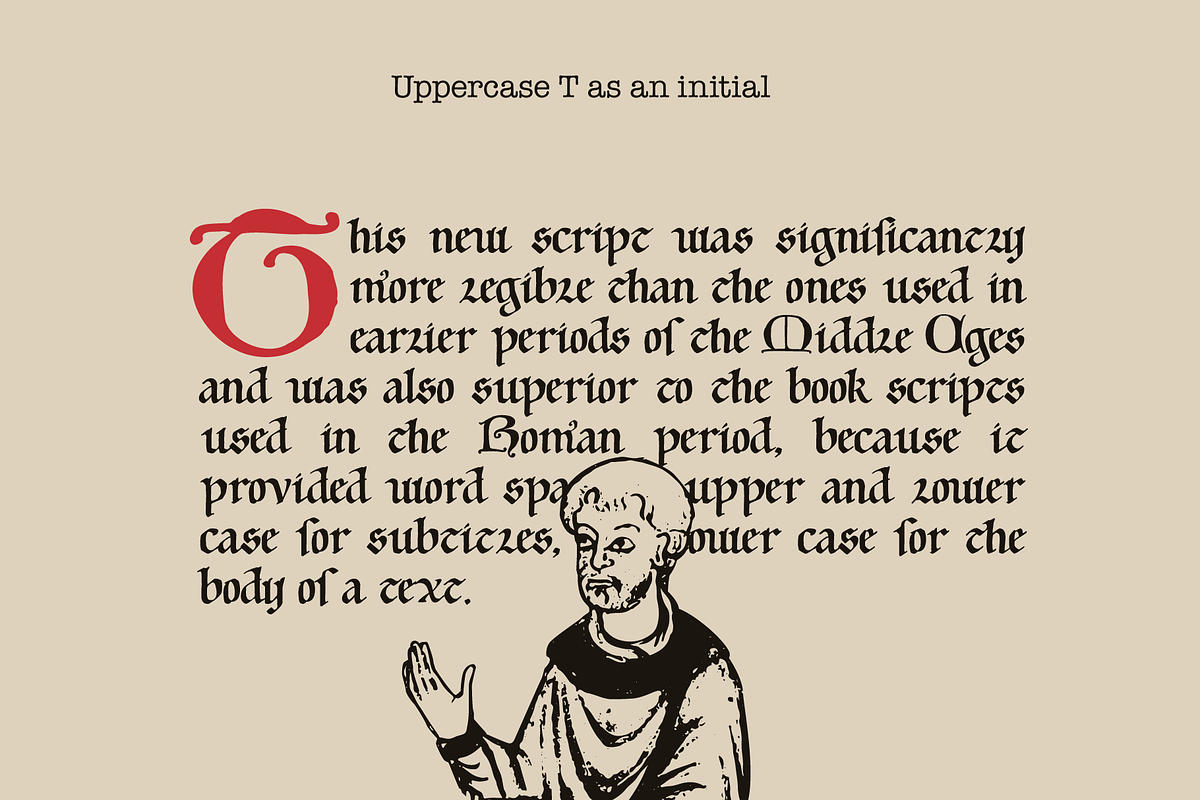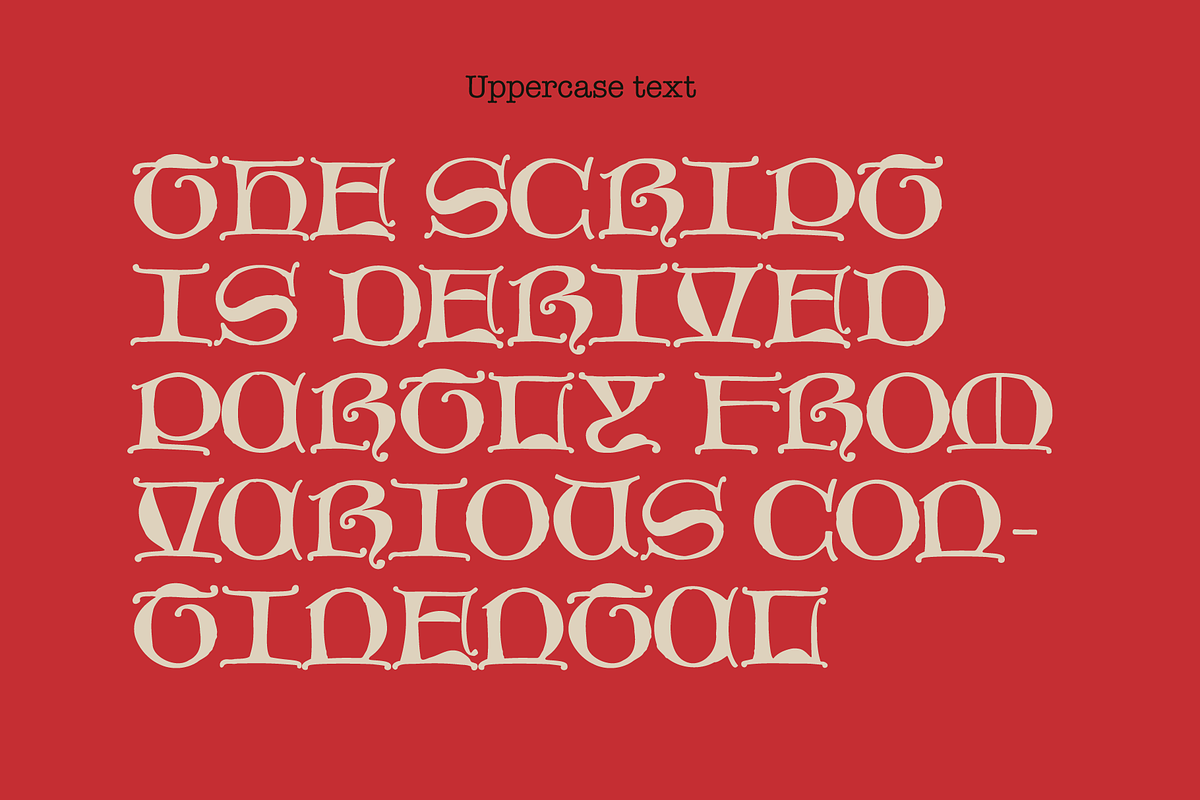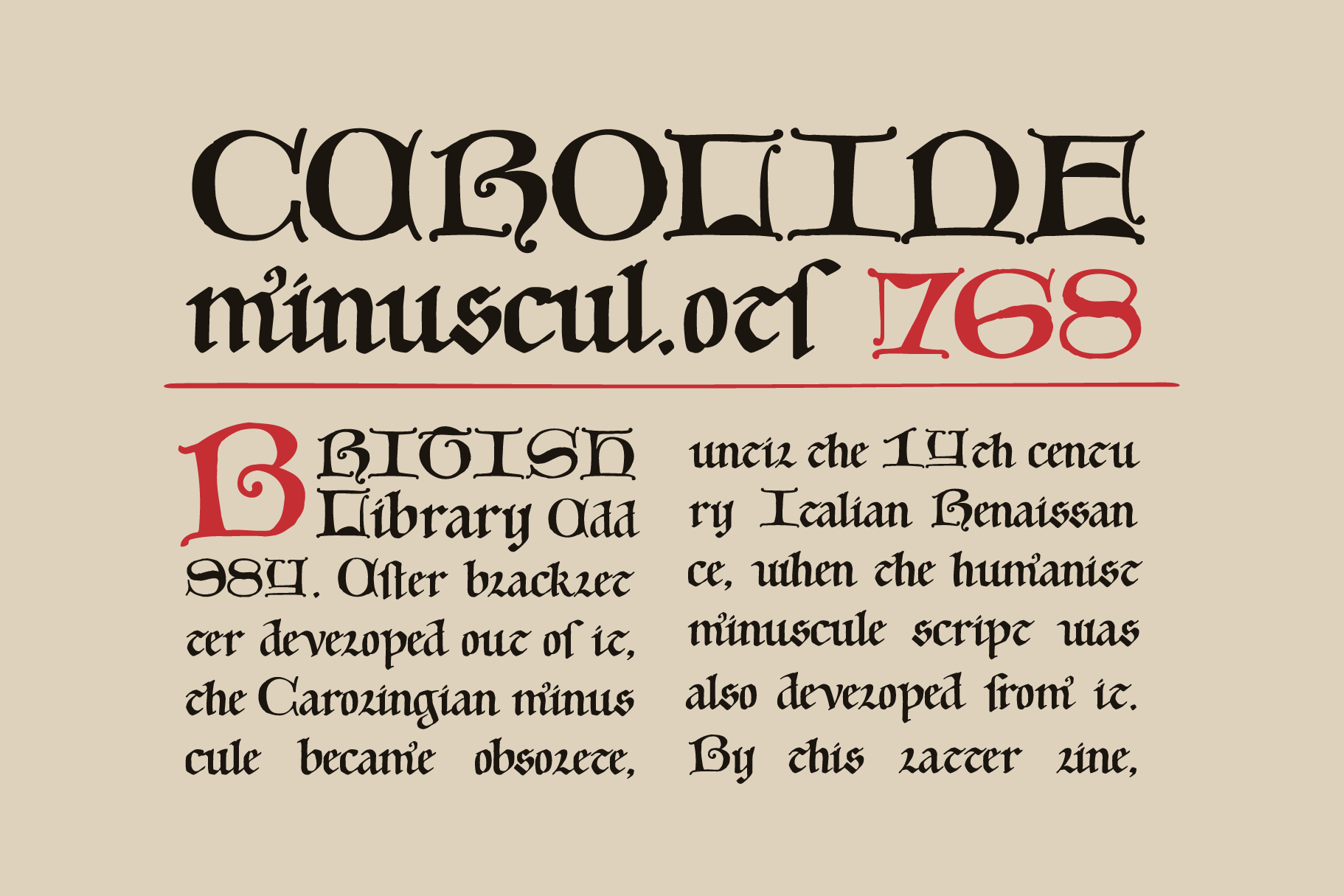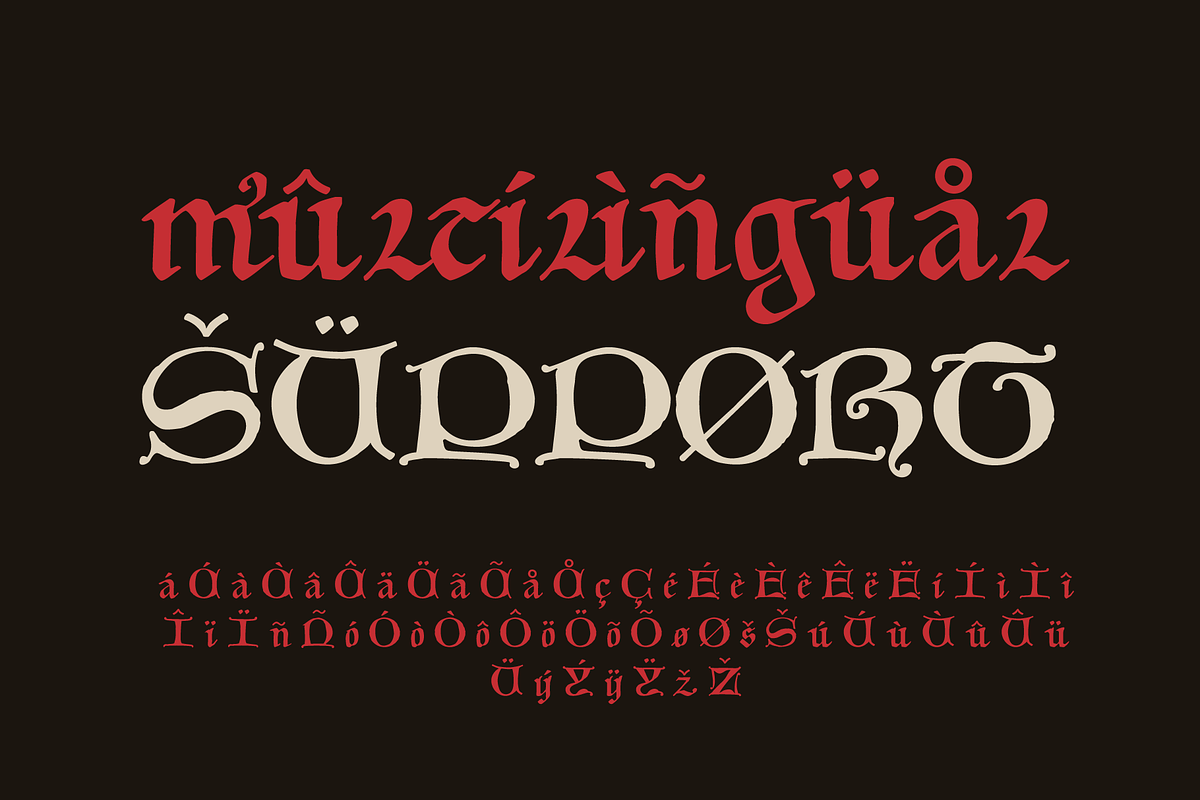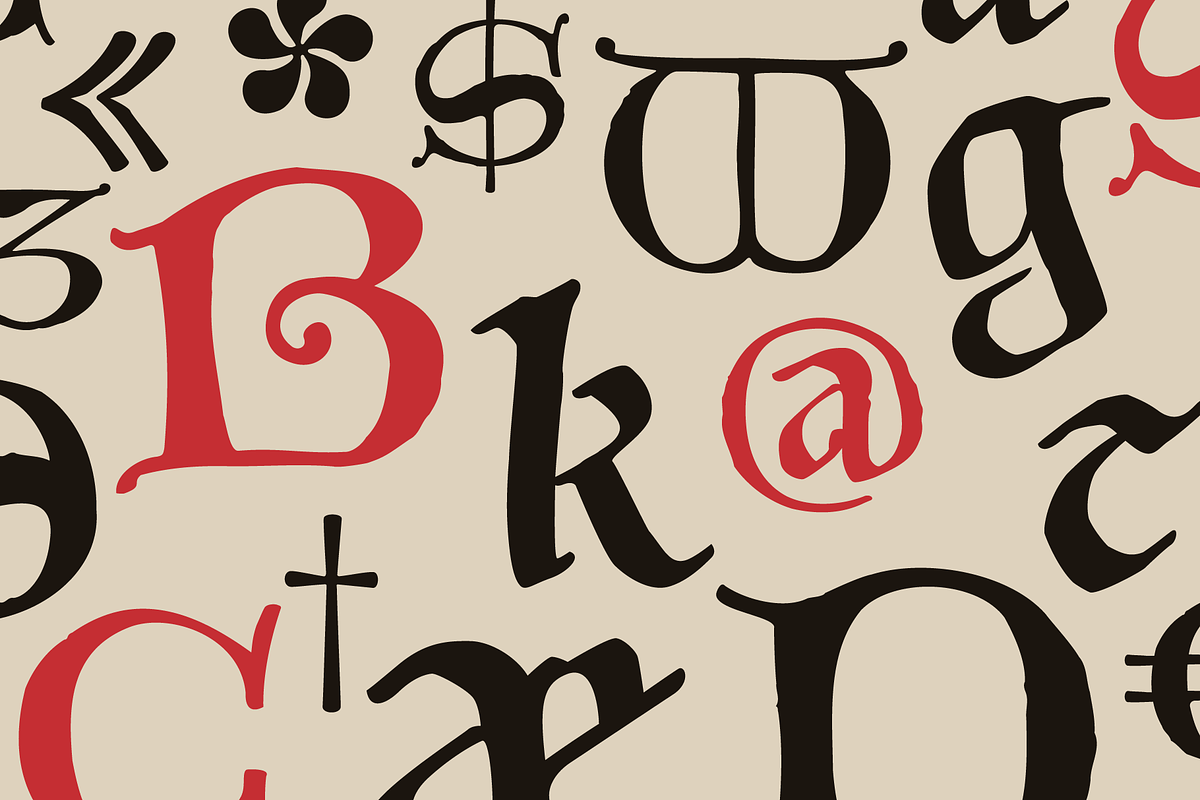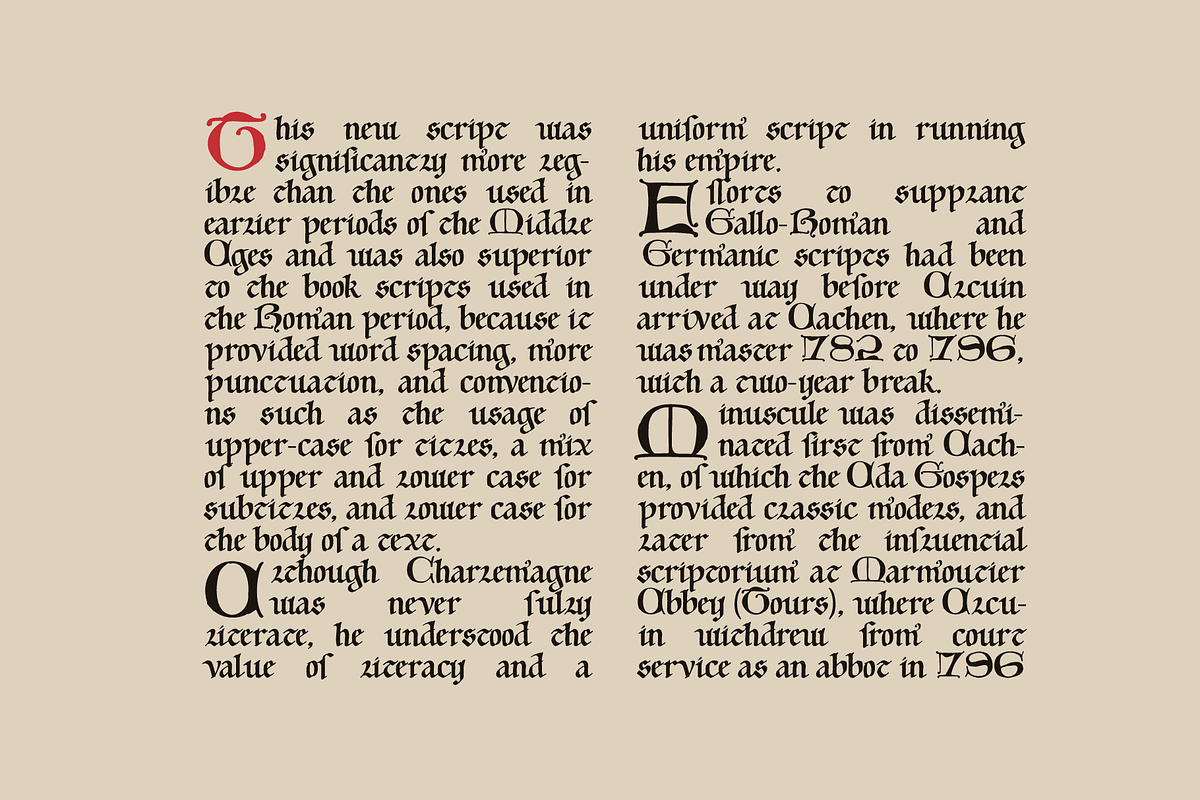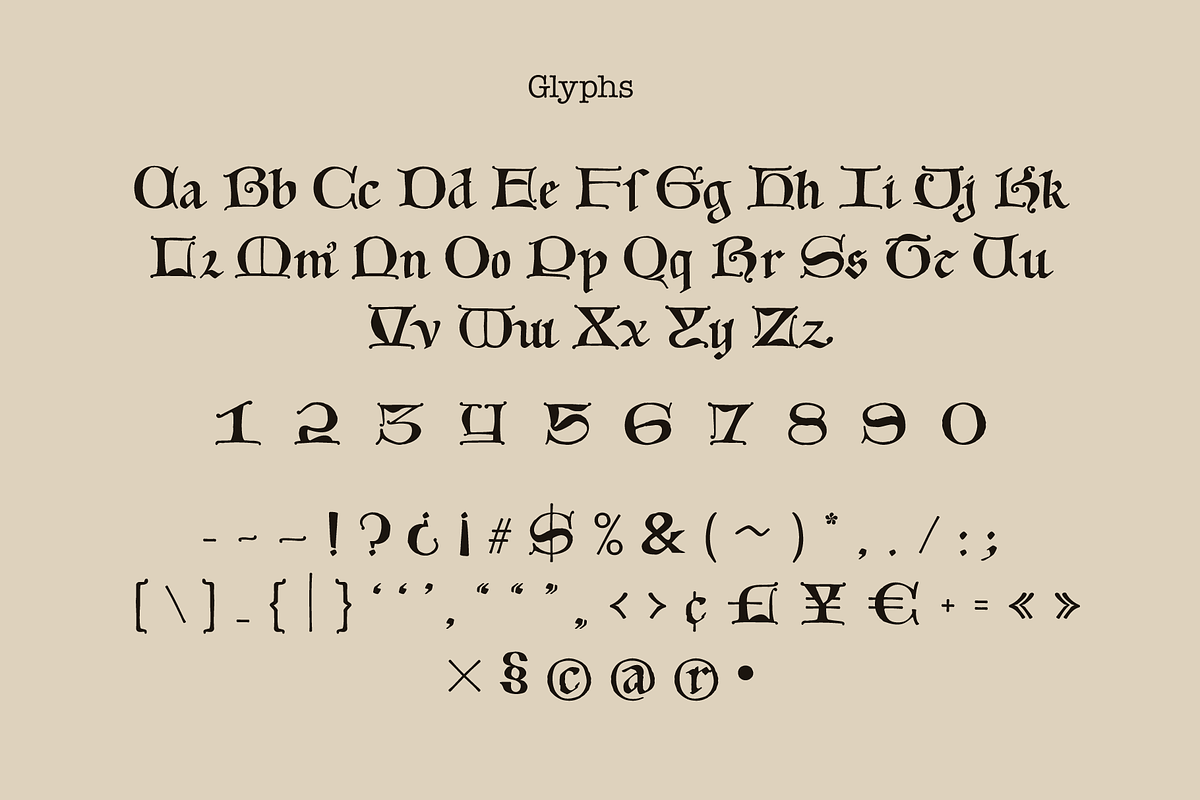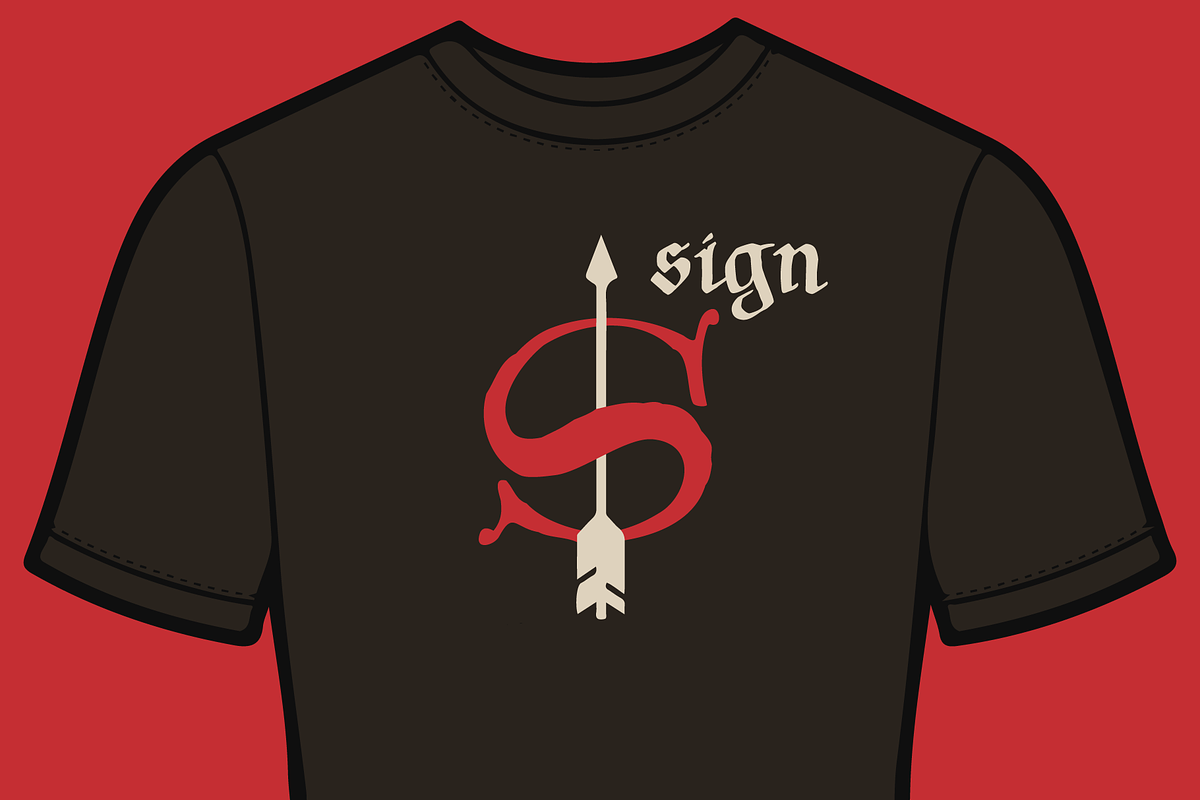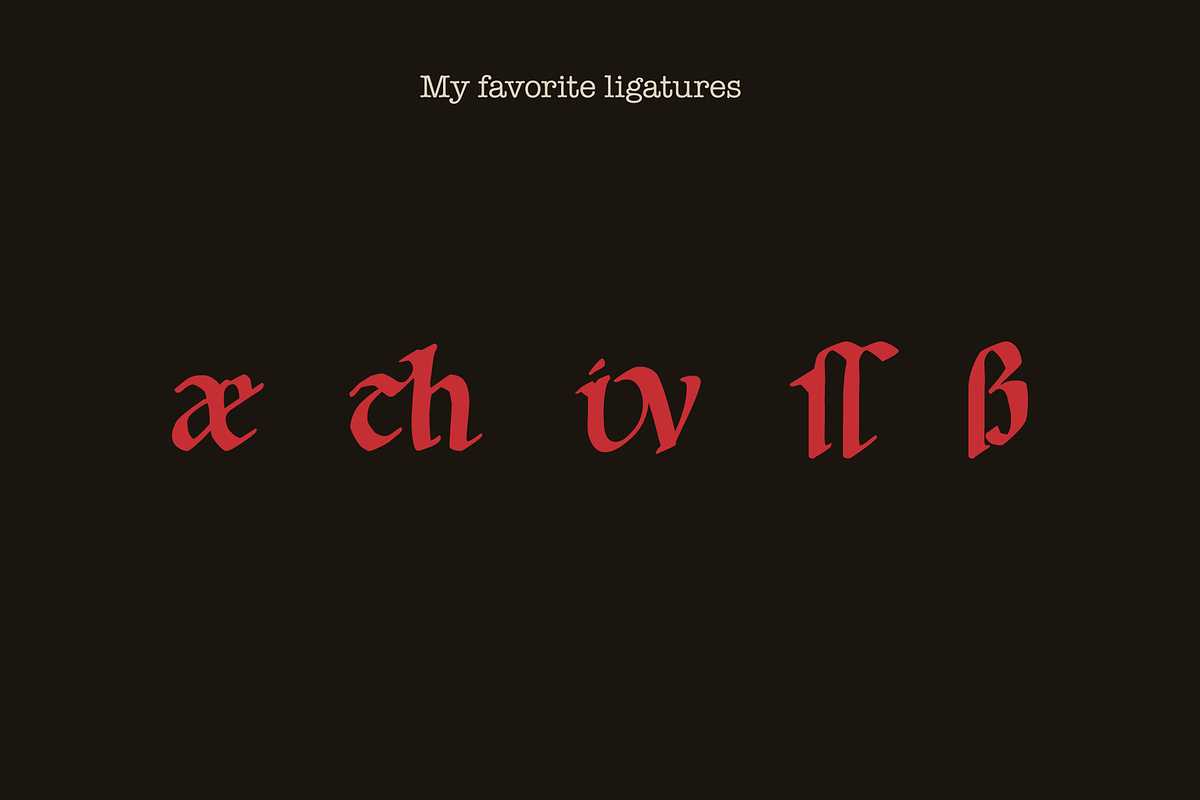
Carolingian Minuscul font
I'm happy to present you my new Middle Ages font from Historia de sancto Willigiso.
The manuscript, created in the mid-12th century, is one of the earliest monuments of Western European book art. It was written in Carolingian minuscule, a script that uses only lowercase letters.
- Numbers and symbols